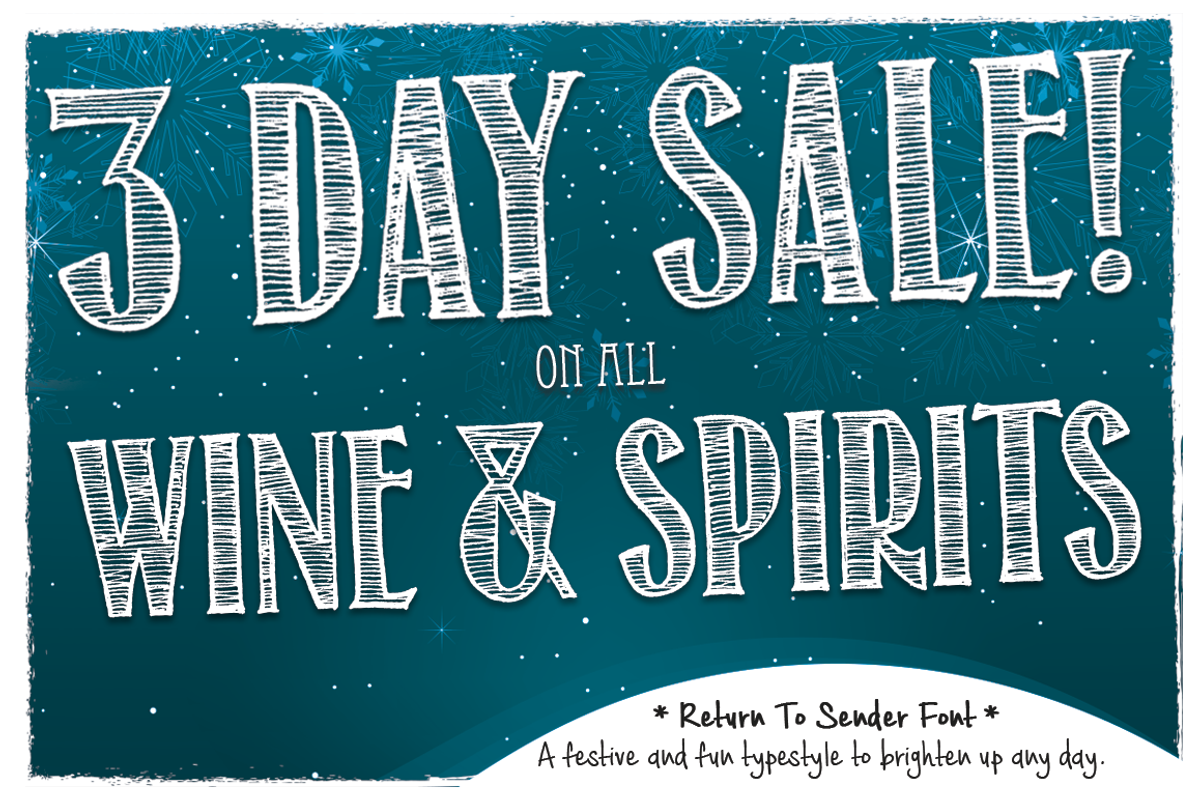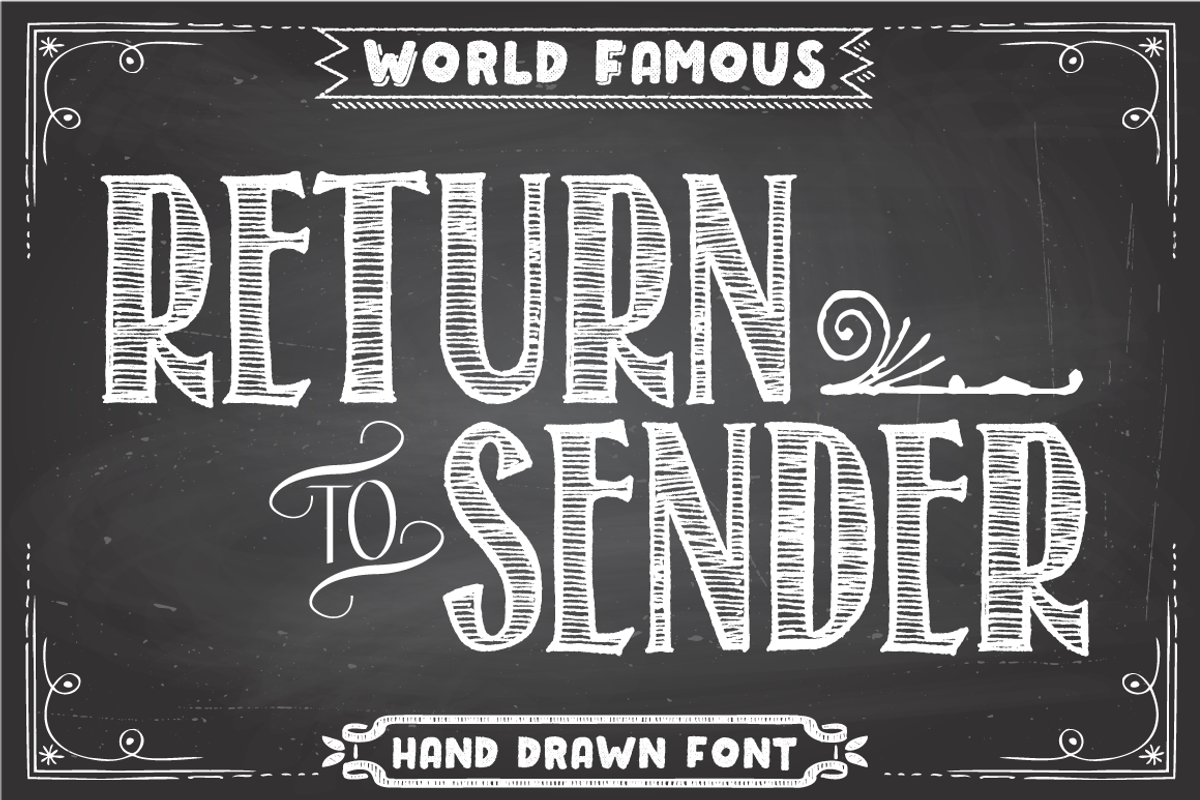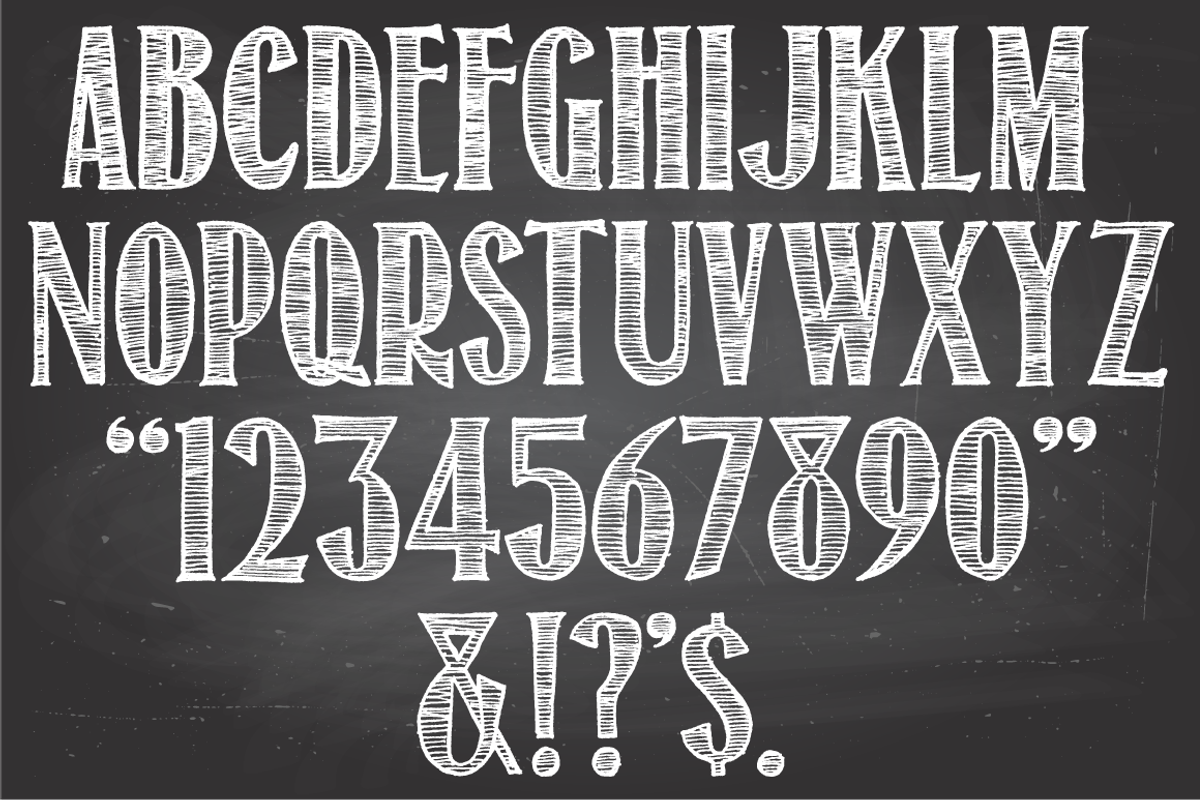
Return To Sender Font
Return To Sender Font by Tom Kolter Fun Shop is a font selected for branding, posters, packaging, typography.
Why Return To Sender Font is worth a look
Return To Sender Font by Tom Kolter Fun Shop fits naturally into Branding, posters, packaging, typography.